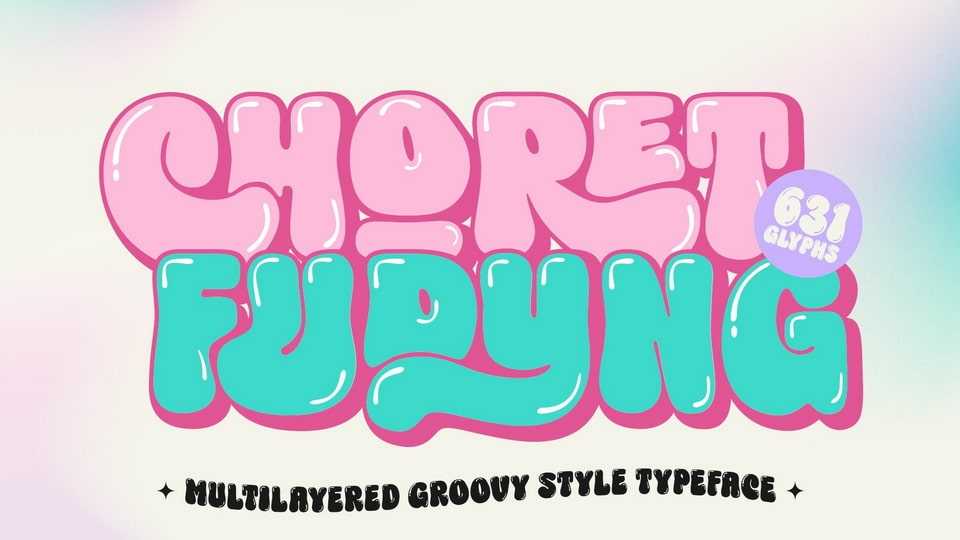
Download Choret Fudyng font, a display typeface with a captivating bubble style that will elevate your designs to new heights. Whether you’re designing logos, posters, or social media graphics, Choret Fudyng has the perfect style to make your text pop.